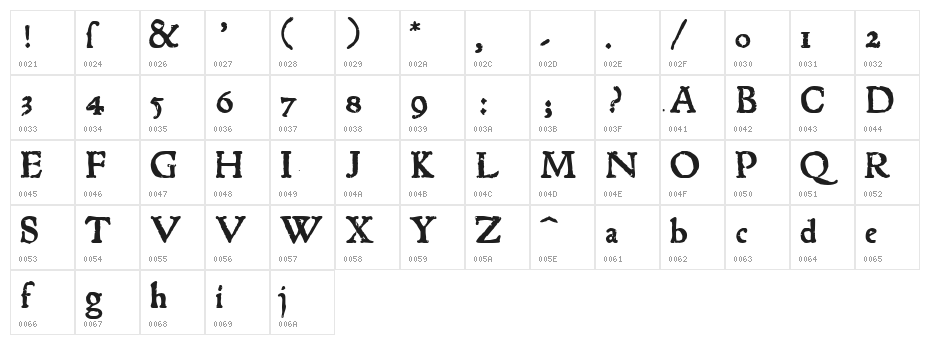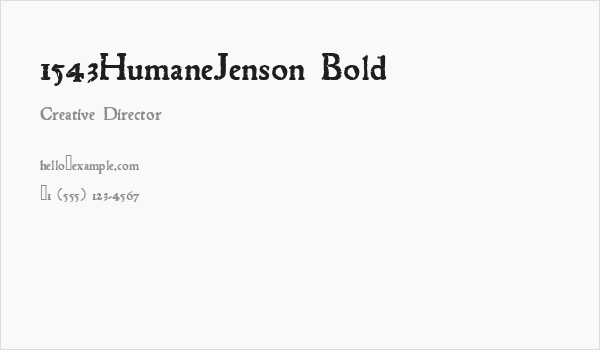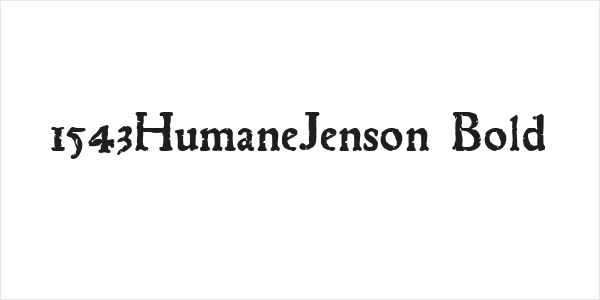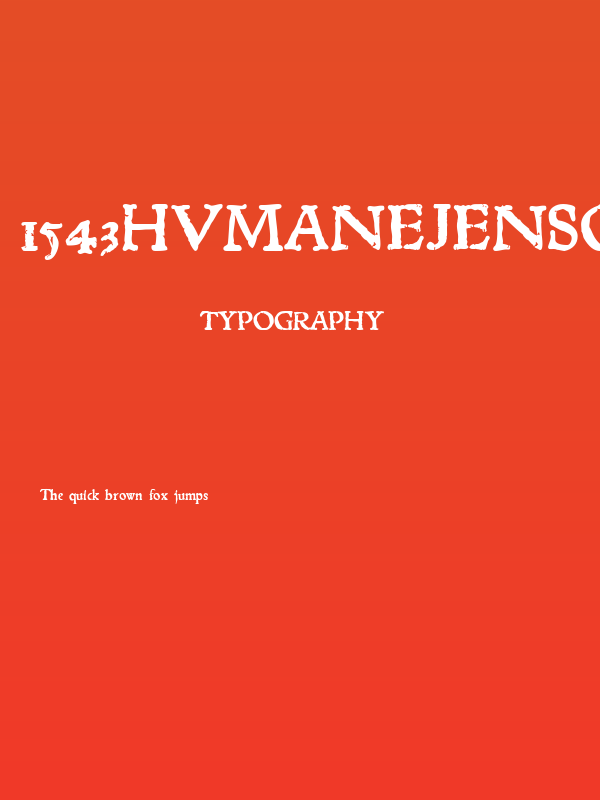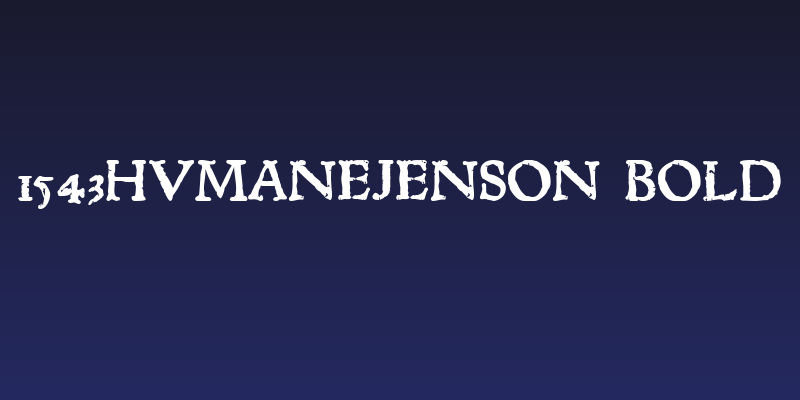
1543HumaneJenson Bold Font
✎ Distorted Eroded
| Caso d'uso | Headlines, Logos, Decorative text |
| Progetti proposti | Ideal for historical documents, book covers, posters, and branding that requires a vintage touch. |